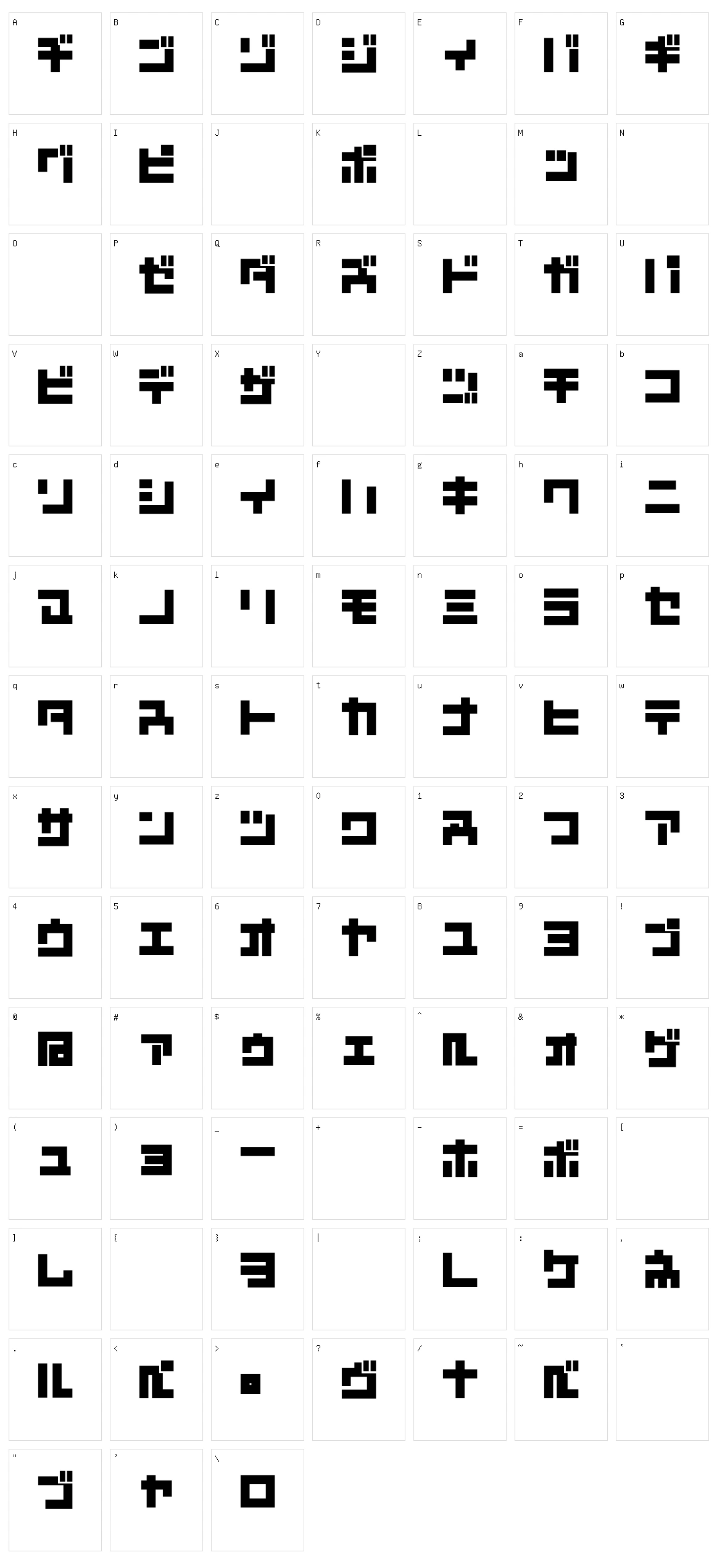
The free font D3 Mouldism is carefully designed by Digital Dream Design, showcasing a thoughtful balance of creativity and usability and falls under the Square font style. When you download the ZIP file, it contains only 21.15 KB of font files, making it lightweight and quick to download. Please review the license details below to understand permitted usage and distribution rights. If license information is not available, we recommend using this font for personal projects only or contacting the author directly for commercial usage permissions.